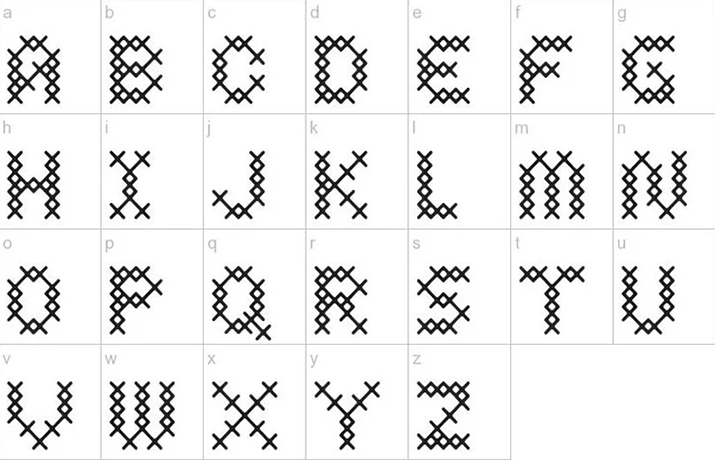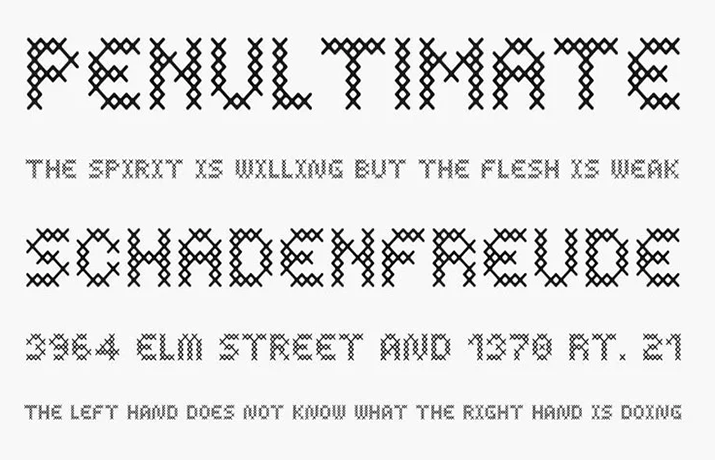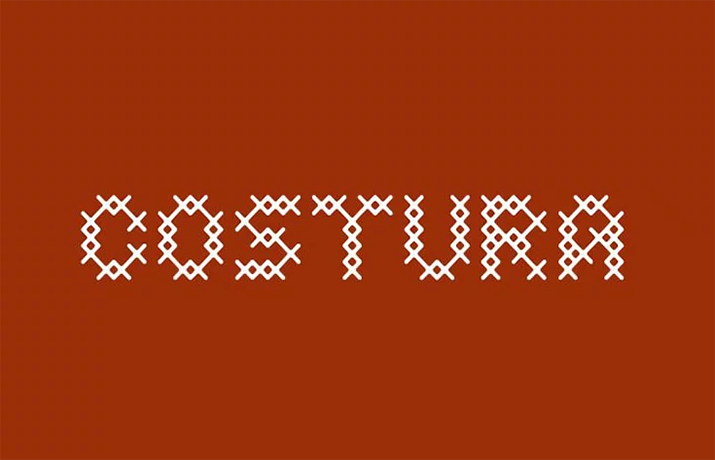
Costura Font is a fancy decorative typeface that has a unique and not standard design. It was designed and published by Simon Wiesmayr.
The expression consists of its unique style in perfect modern decorative forms. These features make it different and superior to others.
Similarly, people love the designs where this amazing font is applied. So, try it out for headlines, logos, Art Deco elements, banners, kids’ bags, product designs, comic books, flyers, headers, and more.
- It has a unique style that is suitable for many designs. Such as logo design, branding, invitation, greeting cards, signatures, covers, posters, social media posts, signatures, flyers, signs, covers, posters, product designs, product packaging, shopping bags, cards, brochures, signs, mugs printing, decorative elements, Instagram quotes, birthday cards, wedding cards, and wherever you want.